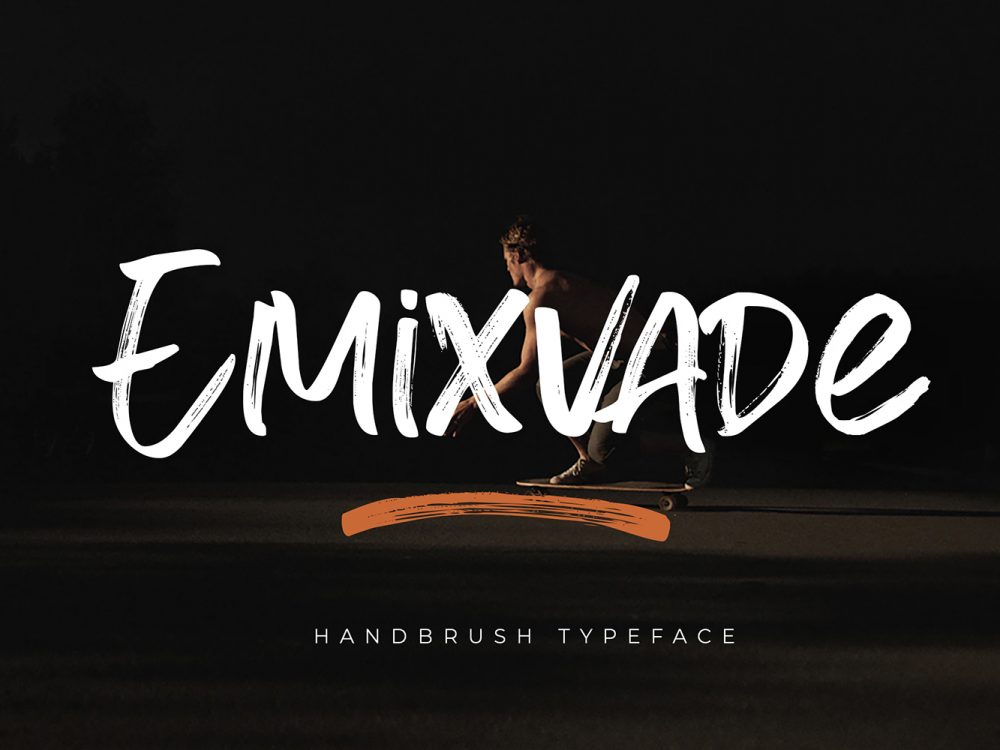
Emixvade Free Font
Emixvade Free Font s an interesting, fresh font that mimics writing with a brush and has an elegant style. This font is very suitable for creating various projects that require a script font. You can use this font to create memorable posters, wedding invitations, greeting cards, branding, flyers, t-shirt and pillow prints, and more. Improve the quality and increase the popularity of your design projects using this font. If you like it don’t forget to check out the full version.